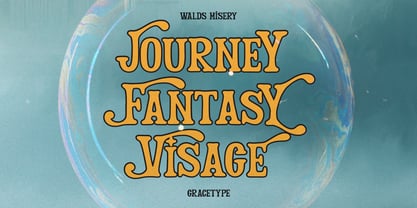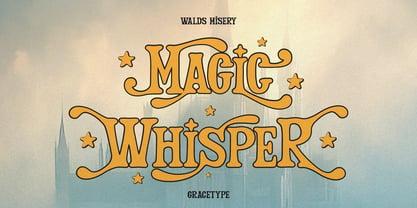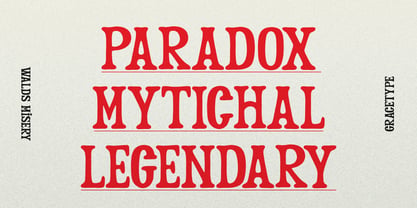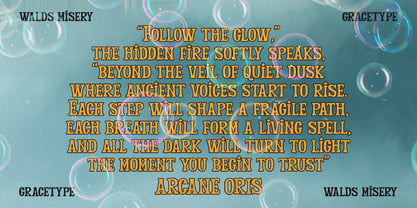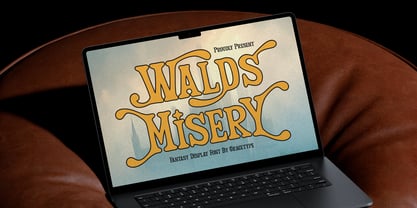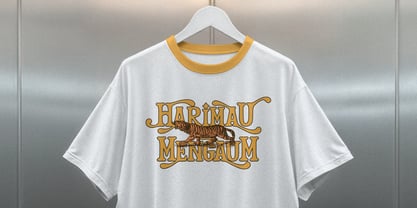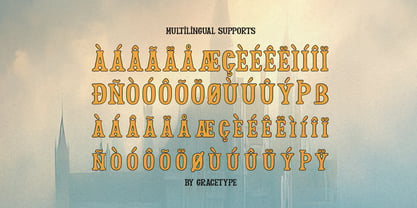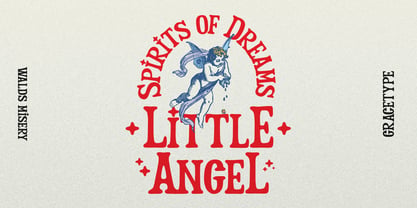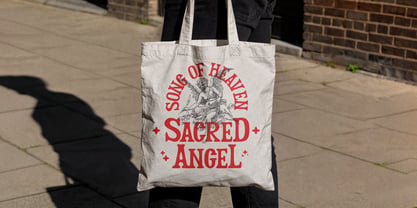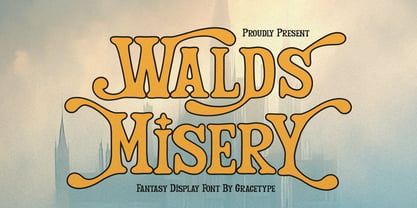
Walds Misery
by Tini Fitriani
The Walds Misery Font Family and published by Tini Fitriani. Walds Misery contains 1 styles. More about this family
Walds Misery | Fantasy Display Font, from Gracetypestudio, suitable for any projects such as: logos, branding projects, homeware designs, product packaging, mugs, quotes, posters, shopping bags, t-shirts, book covers, name card, invitation cards, greeting cards, label, photography, watermark, special events, and all your other lovely projects that need a Hand Drawn taste.